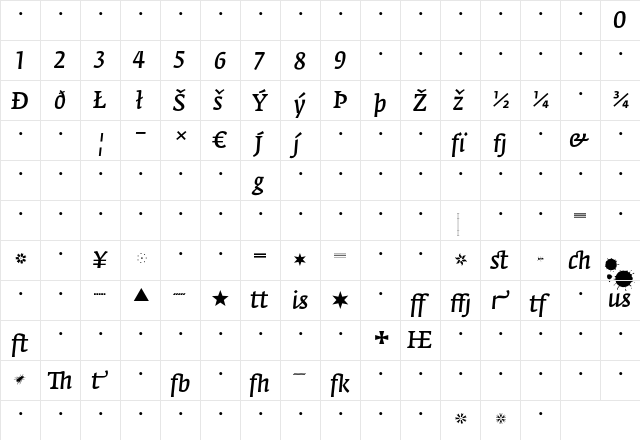
Fedra Serif A Italic Font Preview
Fedra Serif A Italic
Fedra Serif A Italic Font Details
Design Context for Fedra Serif A Typeface
Fedra Serif A carries the refined structure of traditional serif typography, with bracketed terminals and considered proportions that communicate credibility and craft. The slanted form adds forward momentum and visual energy.
Pro Tip: Set Fedra Serif A with slightly loose tracking in headlines to let each letterform's detail read clearly at display sizes.